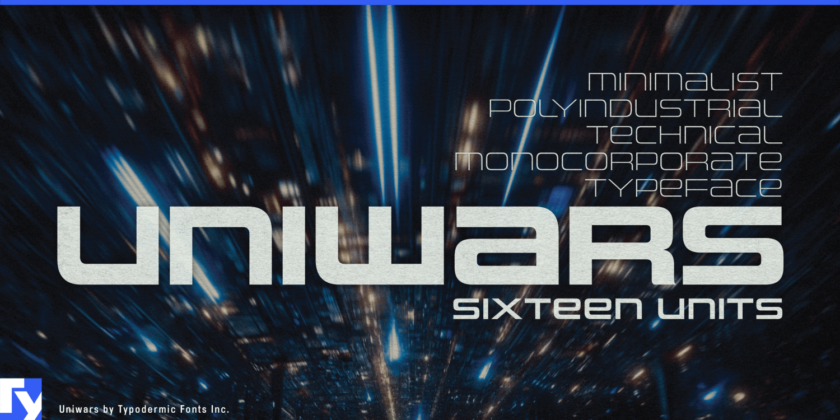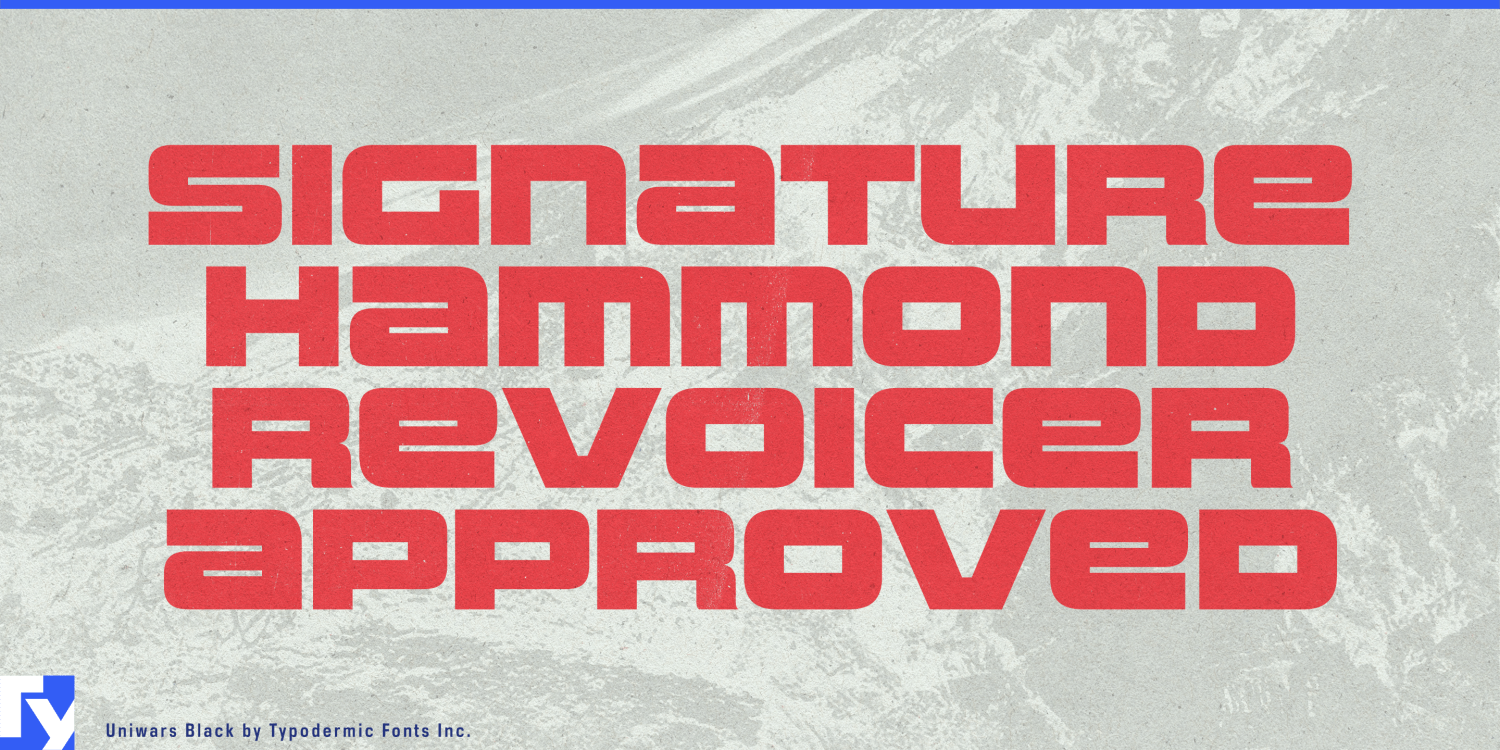
Uniwars: a typeface that slices through visual clutter with the precision of a master swordsmith’s blade. Forged in the crucible of 20th Century Japanese industrial design, this font family embodies the spirit of minimalist efficiency that transformed…